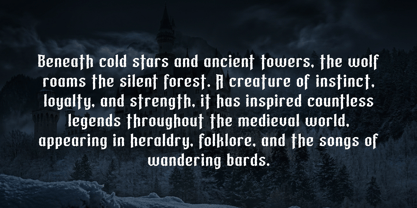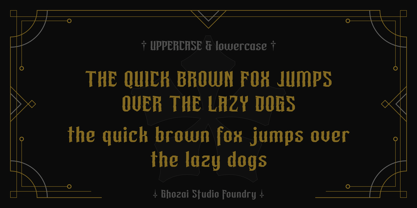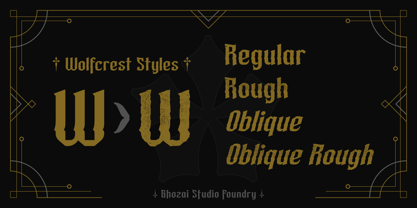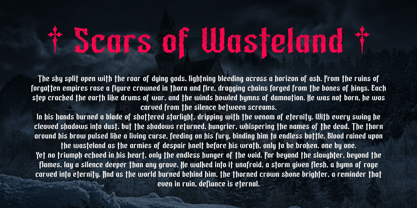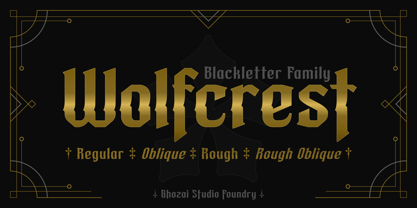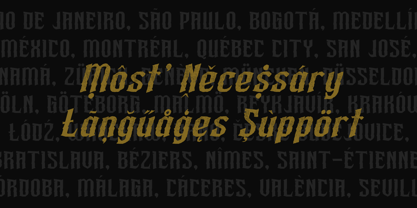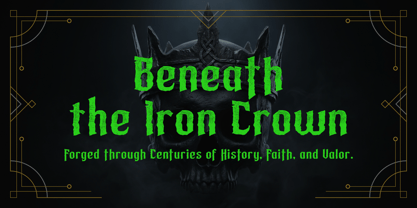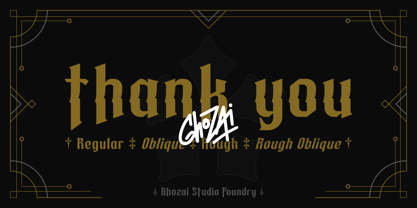
Wolfcrest
by Ghozai Studio
Wolfcrest is a bold blackletter typeface that blends medieval character with modern versatility. Inspired by the craftsmanship of historic Gothic lettering, it captures the spirit of ancient manuscripts, heraldic emblems, and iron-forged traditions while remaining highly functional for contemporary design projects. The family includes four distinct styles: Regular, Oblique, Rough, and Oblique Rough.
Wolfcrest is ideal for gaming titles, fantasy worlds, medieval-themed projects, branding, packaging, apparel, posters, book covers, album artwork, event promotions, logos, signage, tattoo-inspired graphics, craft beverage labels, esports identities, historical publications, and vintage-inspired designs. Its strong presence makes it equally effective for both large display applications and distinctive brand marks.
Wolfcrest includes Stylistic Alternates and ligatures, allowing designers to access alternative letterforms for a more customized and authentic blackletter appearance. Whether you're building a legendary game universe, crafting a heritage inspired brand, designing a festival poster, or creating artwork with a timeless Gothic atmosphere, Wolfcrest delivers a powerful visual voice rooted in tradition and forged for modern creativity.